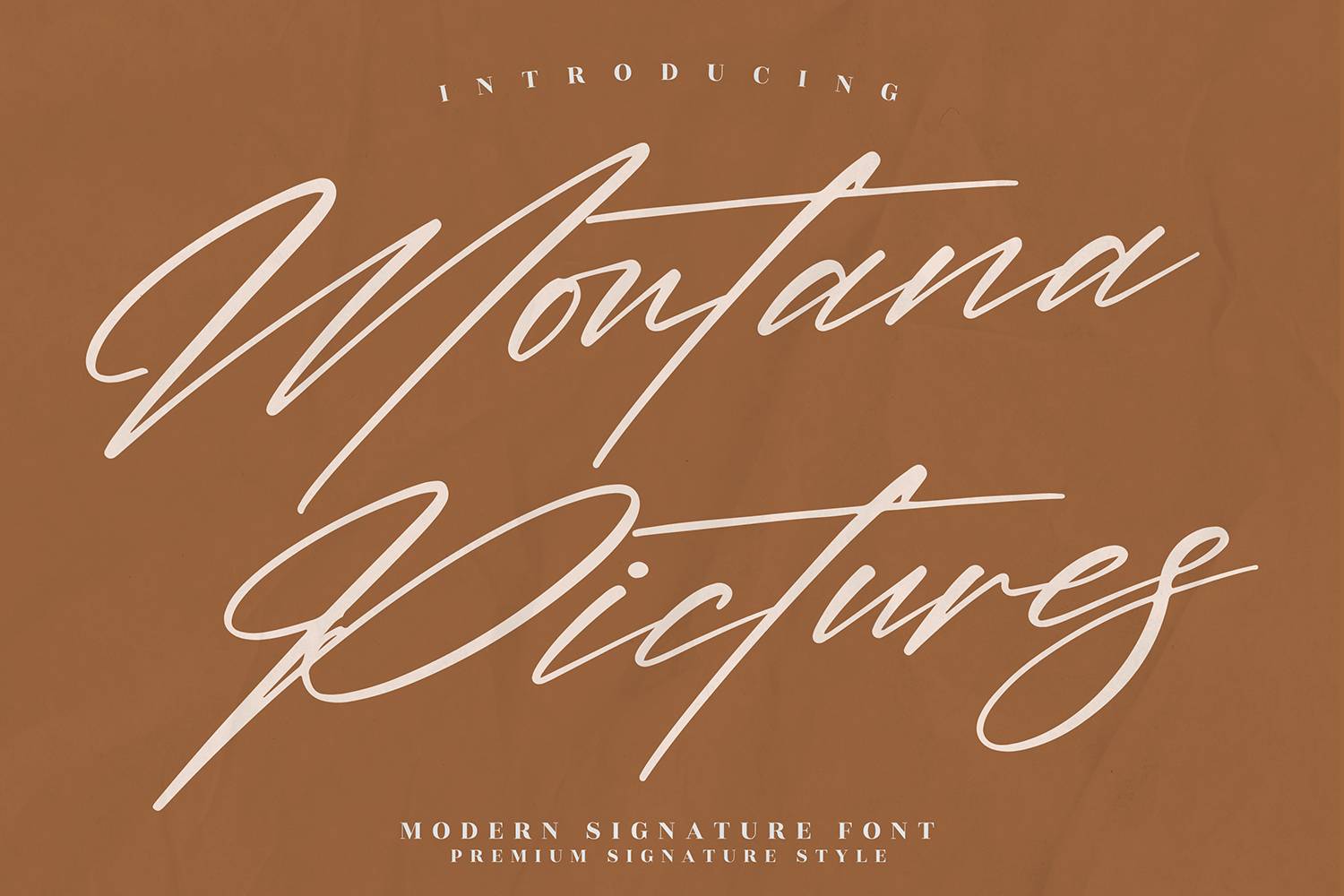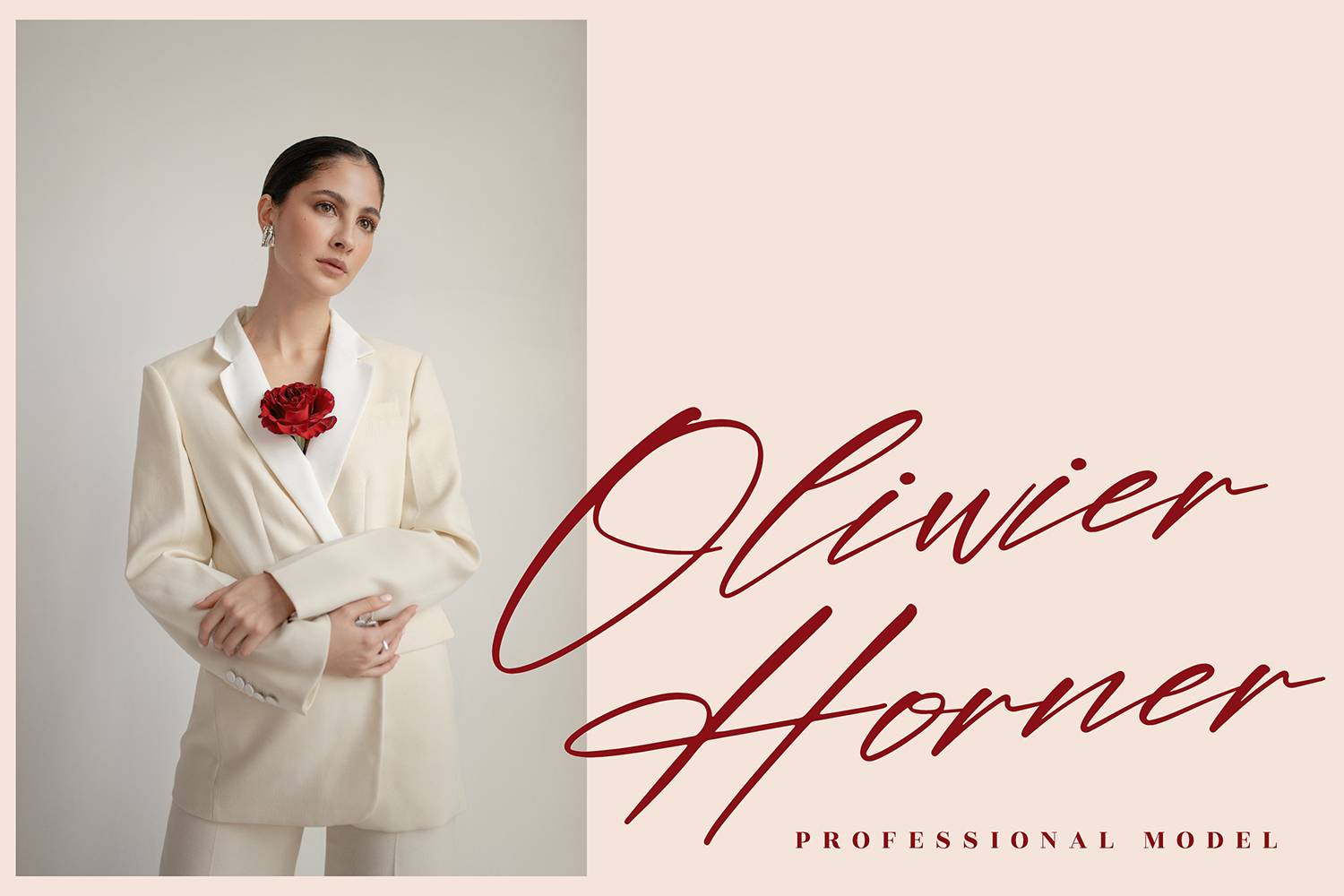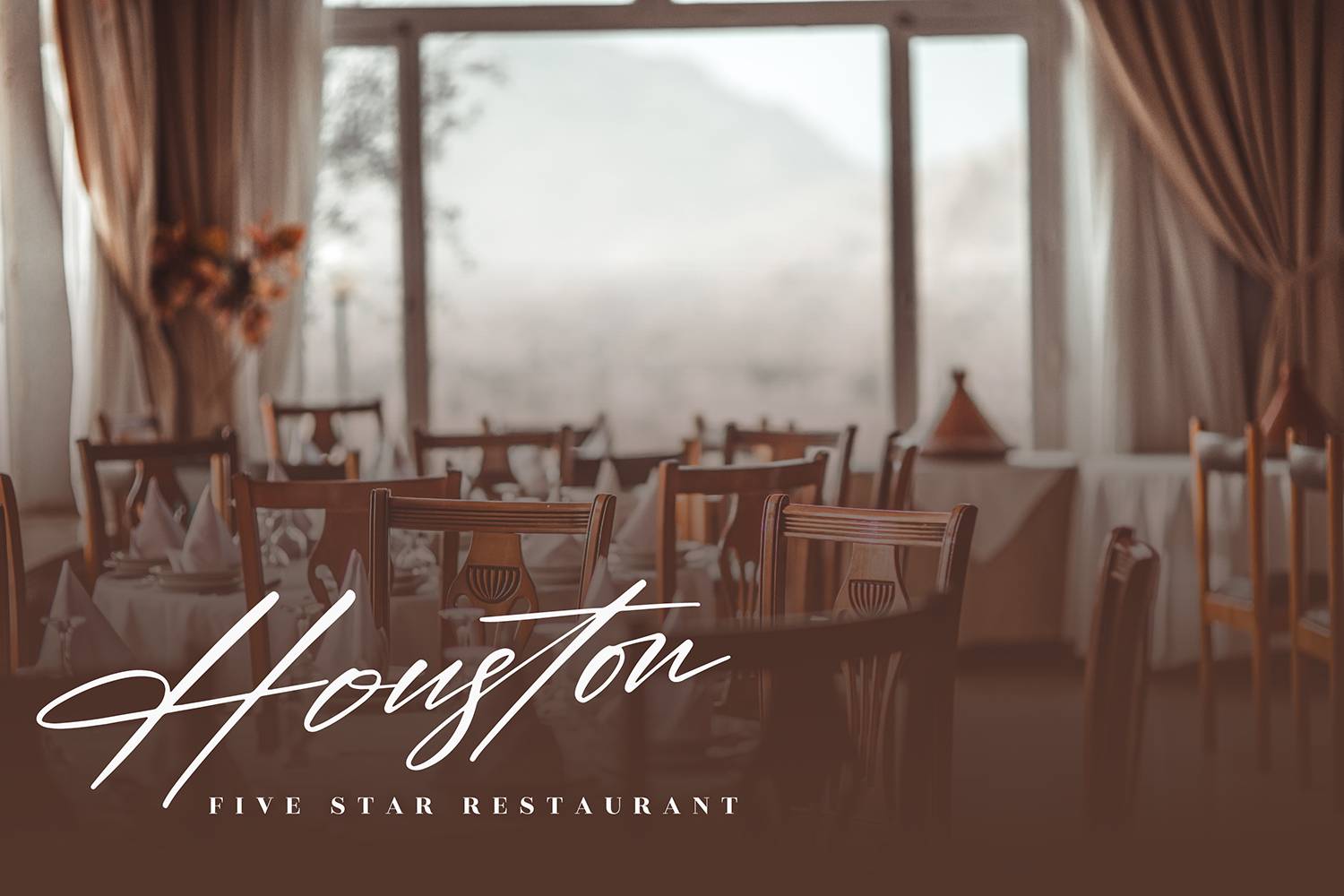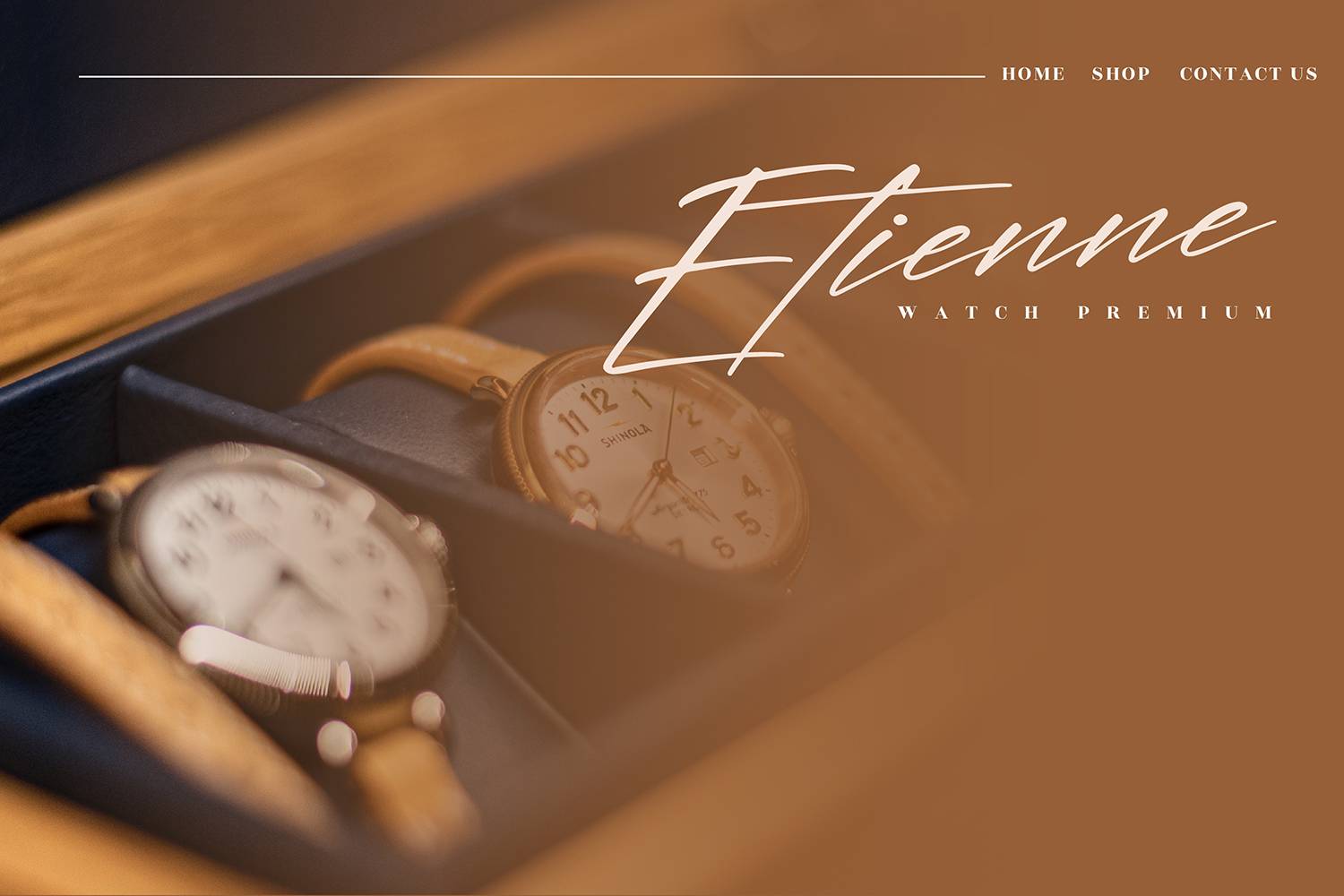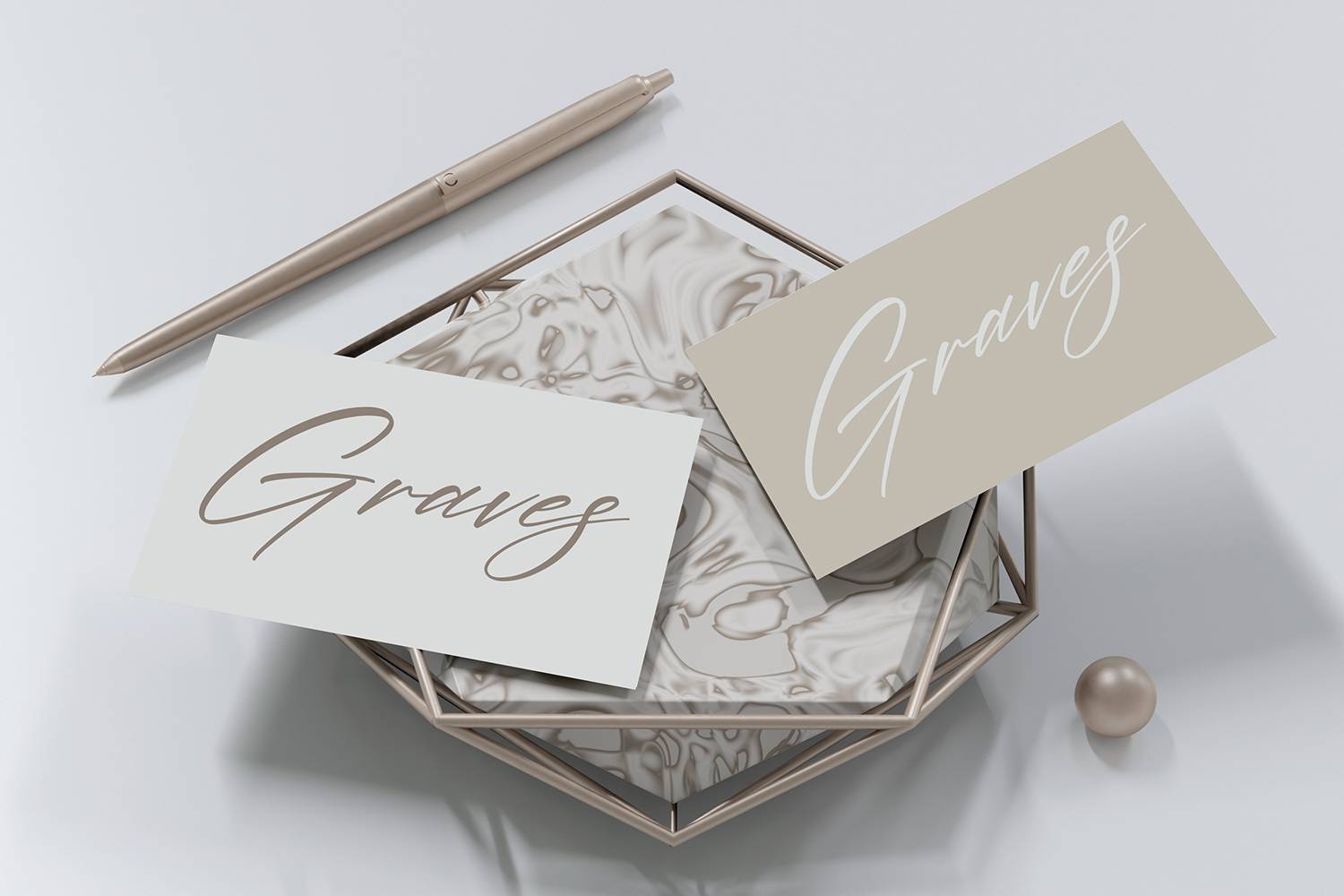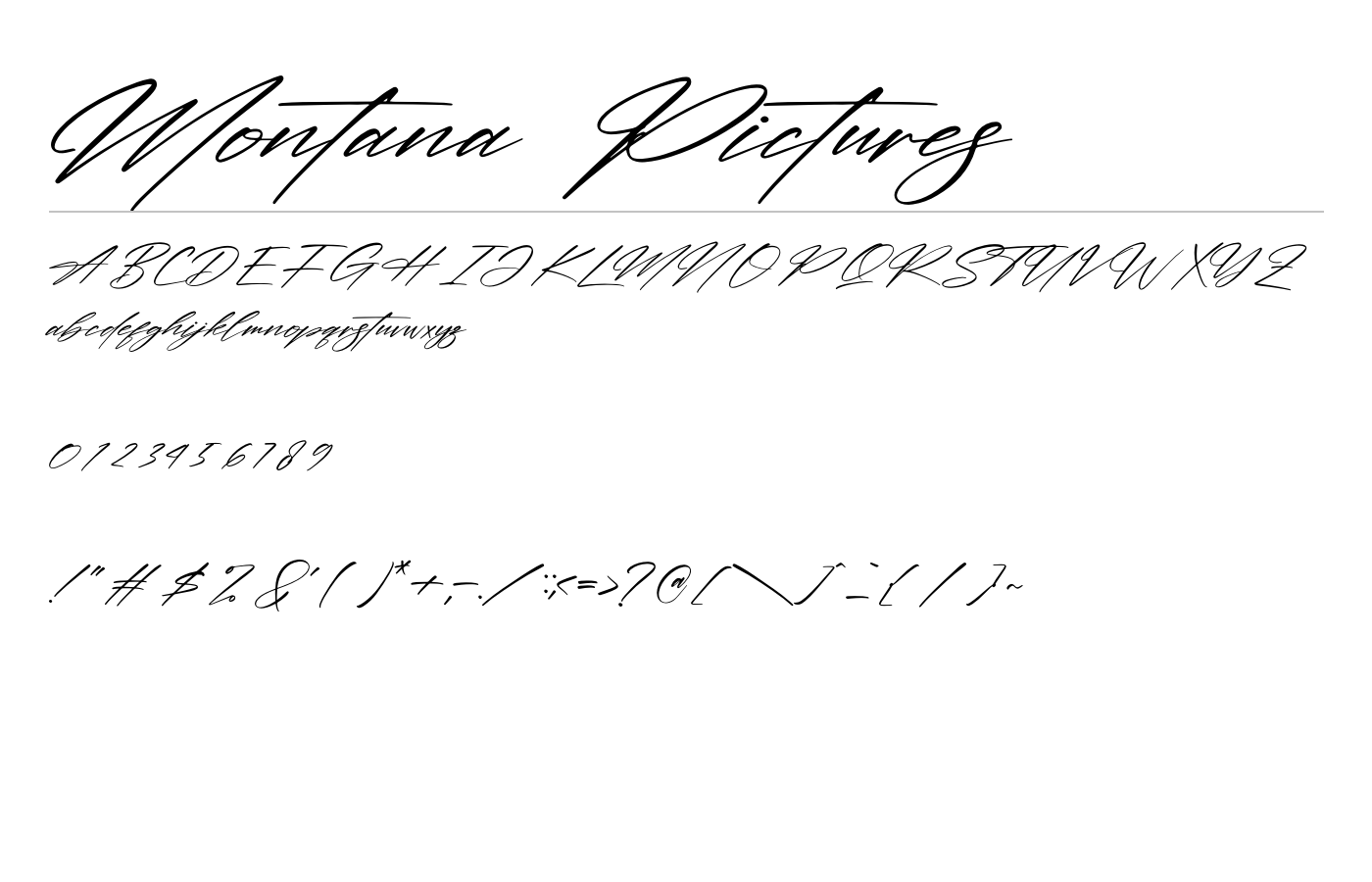
Montana Pictures is an elegant, flowing script font with a refined, handwritten style that exudes sophistication and charm. Its thin, delicate strokes and smooth, connected letterforms make it perfect for luxury branding, invitations, and artistic projects where a personal, graceful touch is desired. This font works beautifully in headlines and logos, giving any design a stylish and polished look.
Montana Pictures Font
About Montana Pictures Font